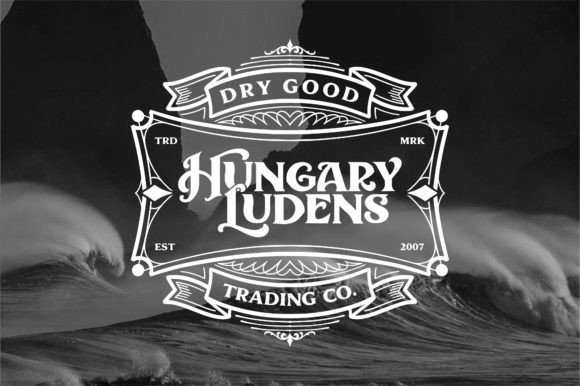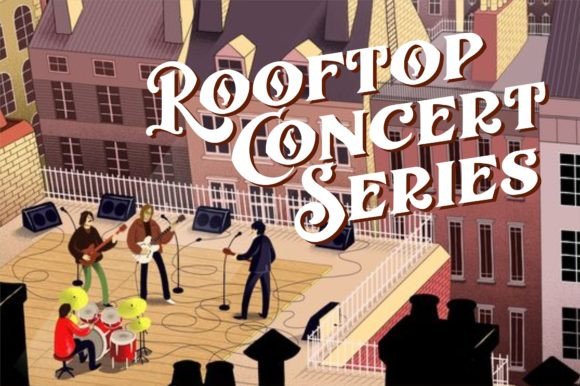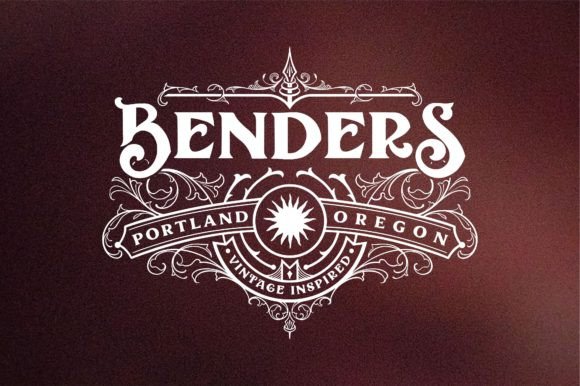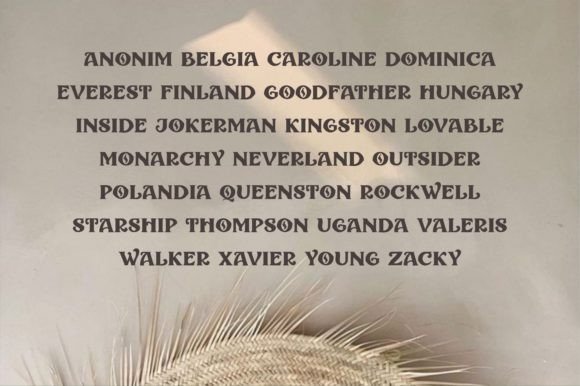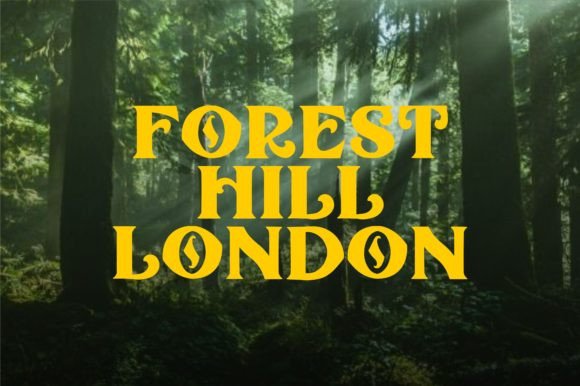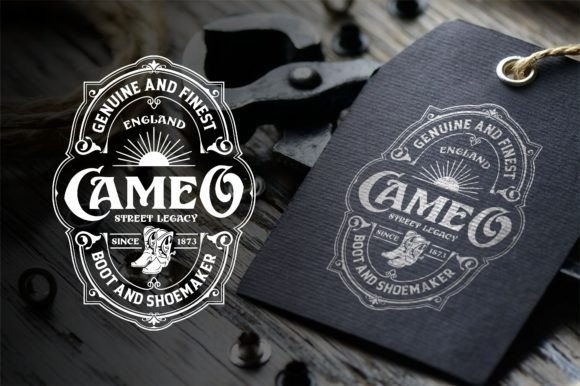
Cawistra Font: A Modern Serif with a Retro Twist
In the world of typography, fonts play a crucial role in conveying the tone and aesthetic of a brand or design. For designers and crafters looking to add a touch of nostalgia to their work, Cawistra Font is an excellent choice. This modern serif font combines the best of both worlds, blending thick curves with serifs to create a unique and captivating visual identity.
The Inspiration Behind Cawistra
Cawistra Font draws inspiration from the iconic designs of the 1980s, with its thick curves evoking a groovy vibe reminiscent of the decade’s bold and playful style. However, the addition of serifs brings a sense of tradition and sophistication, grounding the font in a sense of timelessness. This blend of modern and classic elements makes Cawistra a versatile choice for a wide range of design applications.
Key Features of Cawistra Font
So, what sets Cawistra Font apart from other modern serif fonts? Here are a few key features that make it an excellent choice for designers and crafters:
- Unique Lower and Uppercase Letters: Cawistra Font features a distinctive design for both lowercase and uppercase letters, ensuring that your text stands out from the crowd.
- Numbers, Punctuation, and Alternates: The font includes a comprehensive set of characters, including numbers, punctuation marks, and alternate glyphs, giving you the flexibility to create complex and visually appealing designs.
- Thick Curves and Serifs: The font’s thick curves and serifs work together to create a sense of nostalgia and timelessness, making it perfect for designs that require a touch of vintage flair.
Perfect for Nostalgic Moodboards and Vintage Logos
Cawistra Font is particularly well-suited for designs that require a nostalgic or retro aesthetic. Whether you’re creating moodboards, vintage logos, or simply looking to add a touch of classic style to your typography, Cawistra is an excellent choice. The font’s unique blend of modern and traditional elements ensures that your designs stand out from the crowd, while its versatility makes it suitable for a wide range of applications.
Tips for Using Cawistra Font
To get the most out of Cawistra Font, here are a few tips to keep in mind:
- Experiment with Font Sizes: Cawistra Font looks great at a variety of font sizes, from large headings to smaller body text. Experiment with different sizes to find the perfect balance for your design.
- Play with Color: The font’s thick curves and serifs make it a great choice for bold, colorful designs. Don’t be afraid to experiment with different colors and gradients to add depth and interest to your text.
- Mix and Match with Other Fonts: Cawistra Font pairs well with a wide range of other fonts, from modern sans-serifs to traditional serif fonts. Experiment with different combinations to find the perfect match for your design.
Cawistra Font is a unique and captivating modern serif font that combines the best of both worlds, blending thick curves with serifs to create a timeless and nostalgic aesthetic. With its comprehensive set of characters, including unique lower and uppercase letters, numbers, punctuation, and alternates, Cawistra is an excellent choice for designers and crafters looking to add a touch of vintage flair to their work. Whether you’re creating moodboards, vintage logos, or simply looking for a versatile font for your next design project, Cawistra Font is definitely worth checking out.